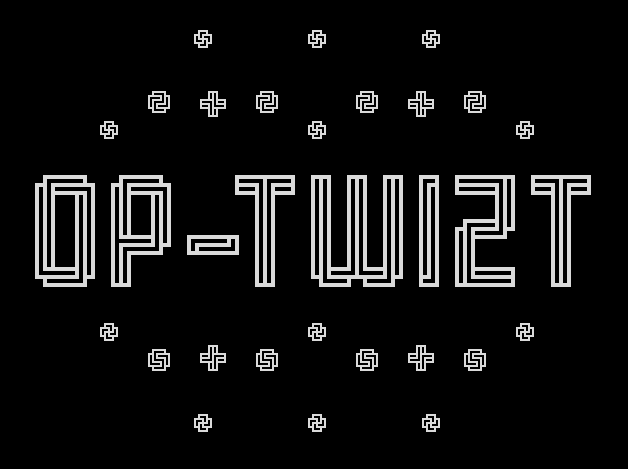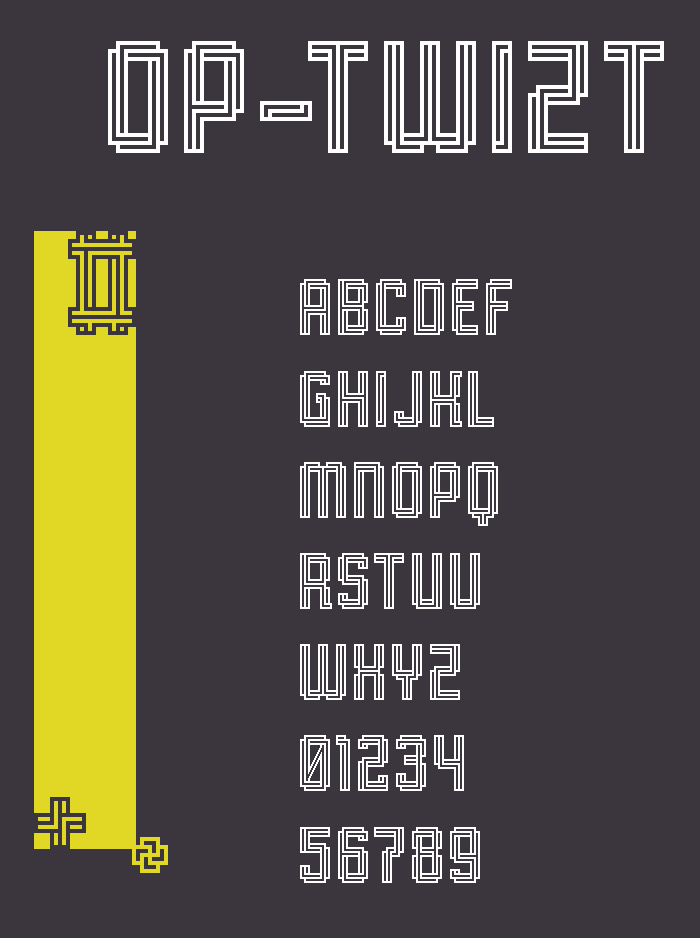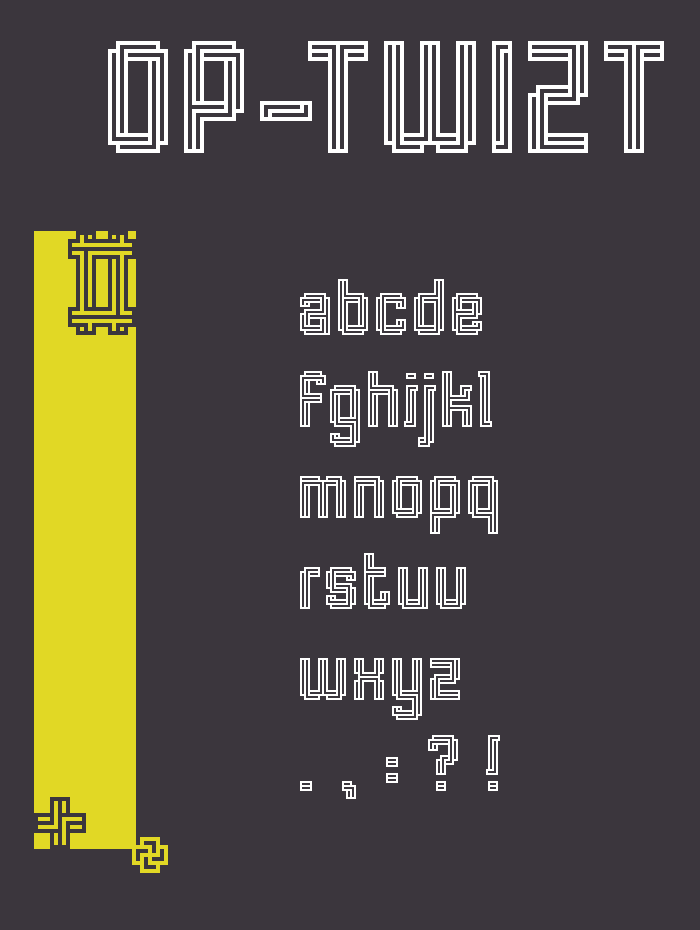
When it comes to impossible design, I think about the Penrose shapes.
@BWM: Yep, thats probably the most famous one, but there are actually quite a few more interpretations. This uses a twisted approach to achieve the impossible geometry.
Nice twists. I suggest you a minimum improvement.
@elmoyenique: Thanks for pointing the anomalies mate, I changed corrected them, and also changed some other characters such as '5' and '@'.
I think now all the characters have proper correct impossible geometry.
Sorry again, but I see that C maintains the original twist. Is that OK?
Oh lol, I forgot C indeed, now fixed, also G was slightly modified !